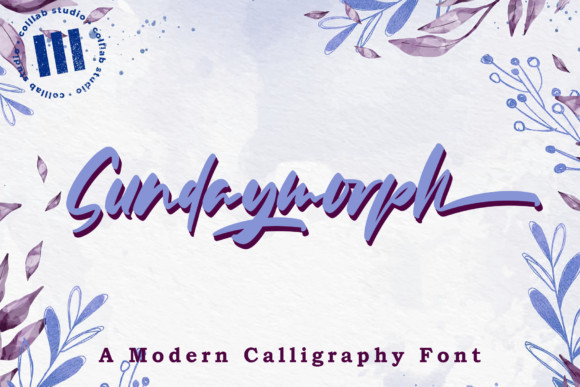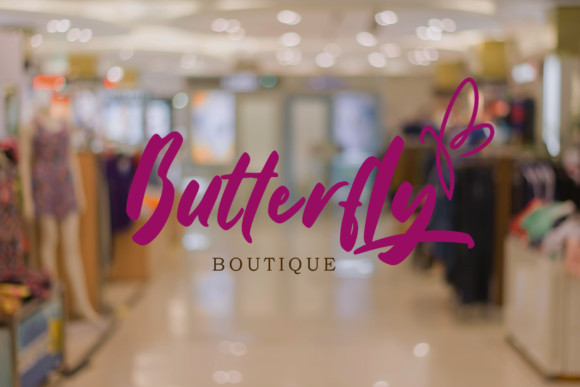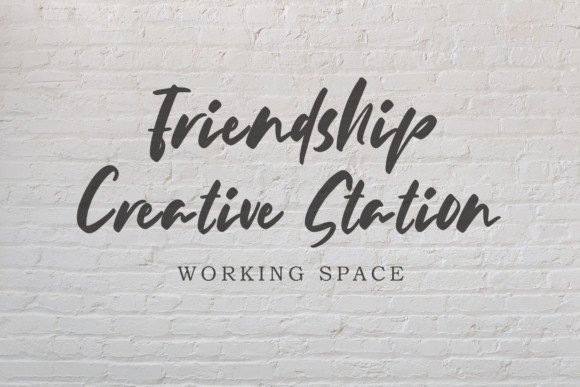
Sundaymorph Font
Sundaymorph is an incredibly distinct, delicate and timeless handwritten font. It looks stunning on wedding invitations, thank you cards, quotes, greeting cards, logos, business cards and every other design which needs a handwritten touch.